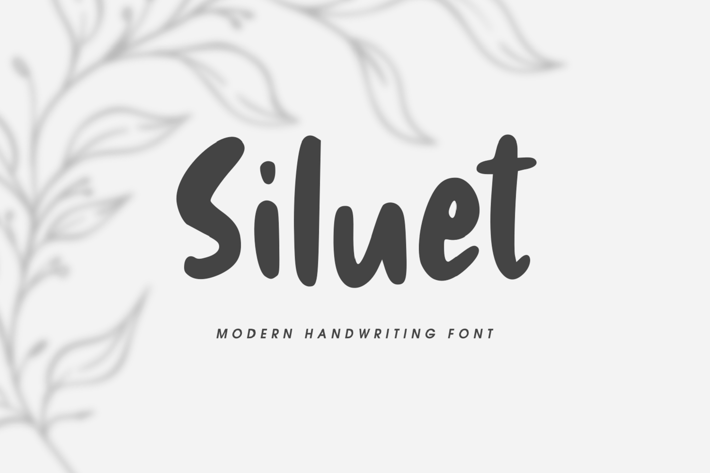
Siluet - Modern Handwriting Font
Siluet - Modern Handwriting Font, it’s perfect for logos, name card, magazine layouts, invitations, headers, or even large-scale artwork.